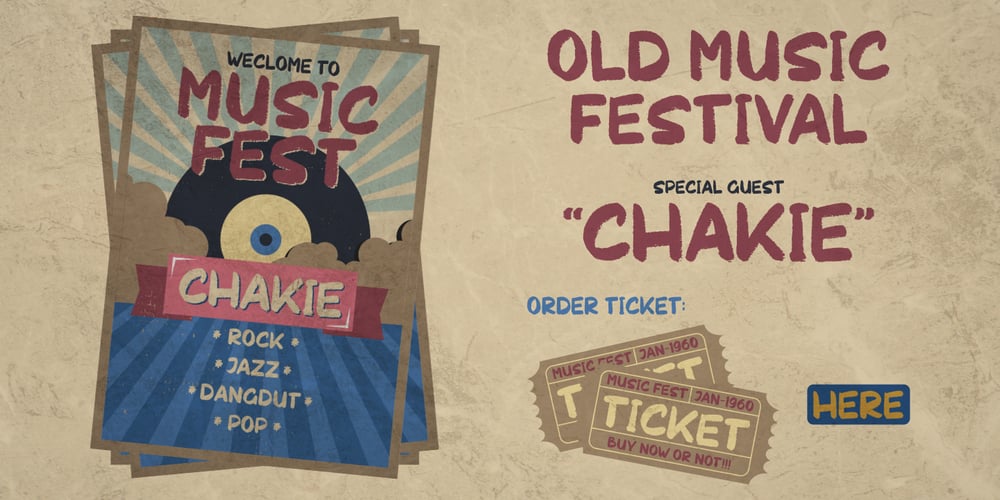
Chakie Font Family was designed by Risman Ginarwan and published by Garisman Studio. Chakie contains 1 styles and family package options. Just call me CHAKIE. I’m born from the old natural brush chalk look from the 60’s and 70’s. Use meto create very bold and strong design! Great for posters, t-shirt designs, branding, packaging, labels, and more. Bring back me to the 60’s brother! ๐ And why you must grab me? – Simple installation – Support for 23 languages (WOW!) – Compatible with MAC or PC – PUA encoded – Lots of fun!